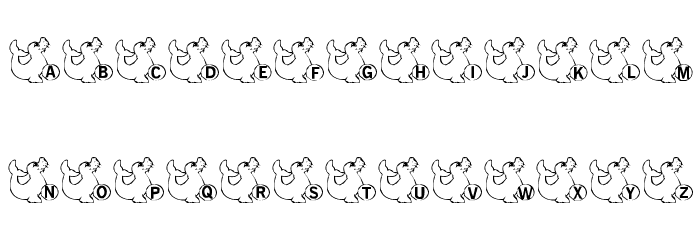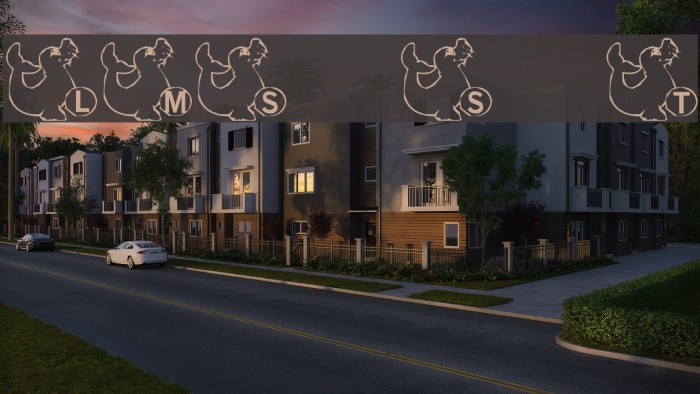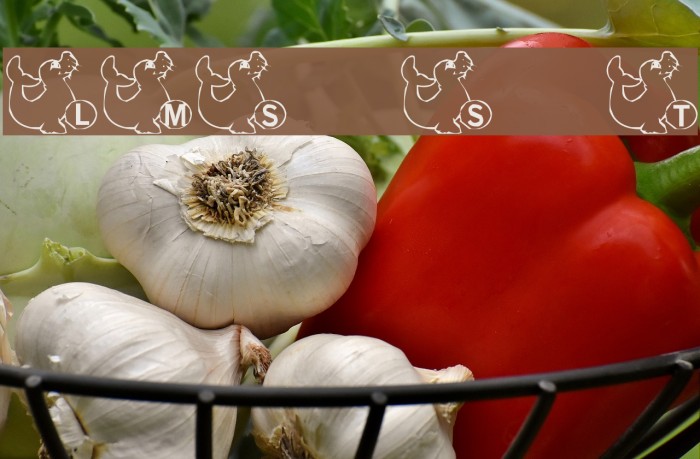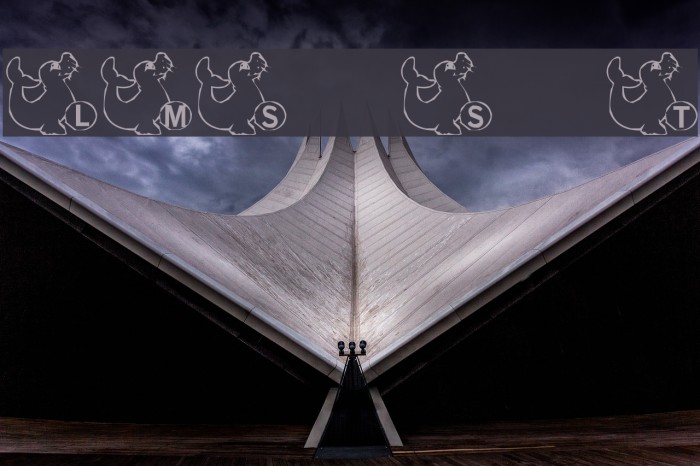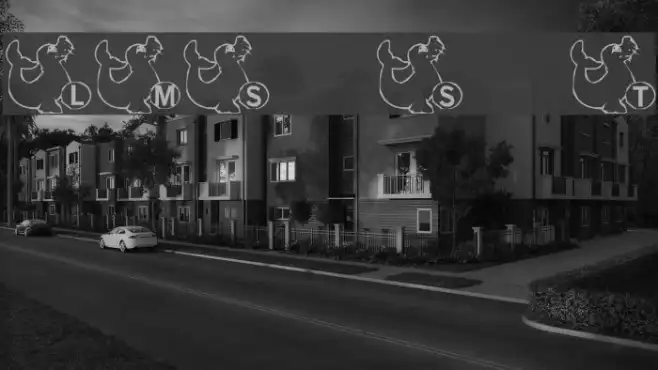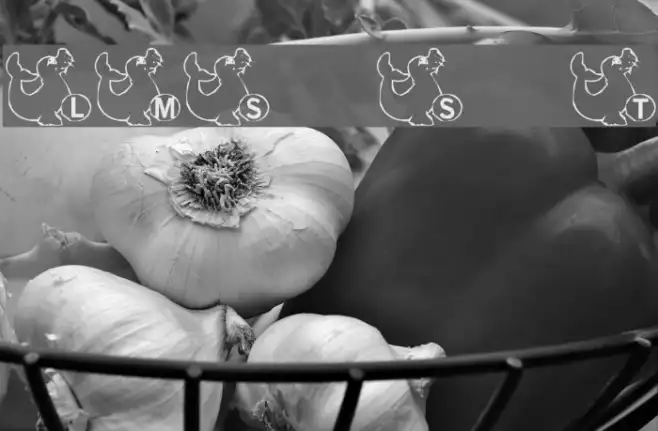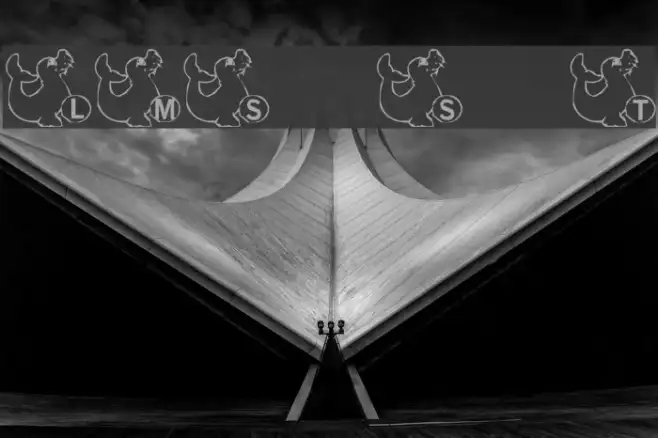
LMS Seal Talk Font
This decorative font features each letter encapsulated within a playful seal illustration, creating a whimsical and engaging visual experience. The letters are bold and clear, ensuring readability despite the intricate design. The seals are drawn with a light, sketch-like quality, adding a sense of movement and fun. This font is perfect for projects that require a touch of humor and creativity, such as children's books, playful branding, or themed event invitations. The unique combination of typography and illustration makes it stand out, offering a memorable and distinctive style.
A whimsical font with letters inside playful seal illustrations.
- Font: LMS Seal Talk
- Proposed Projects: Ideal for children's books, playful branding, themed event invitations, and creative projects requiring a fun touch.